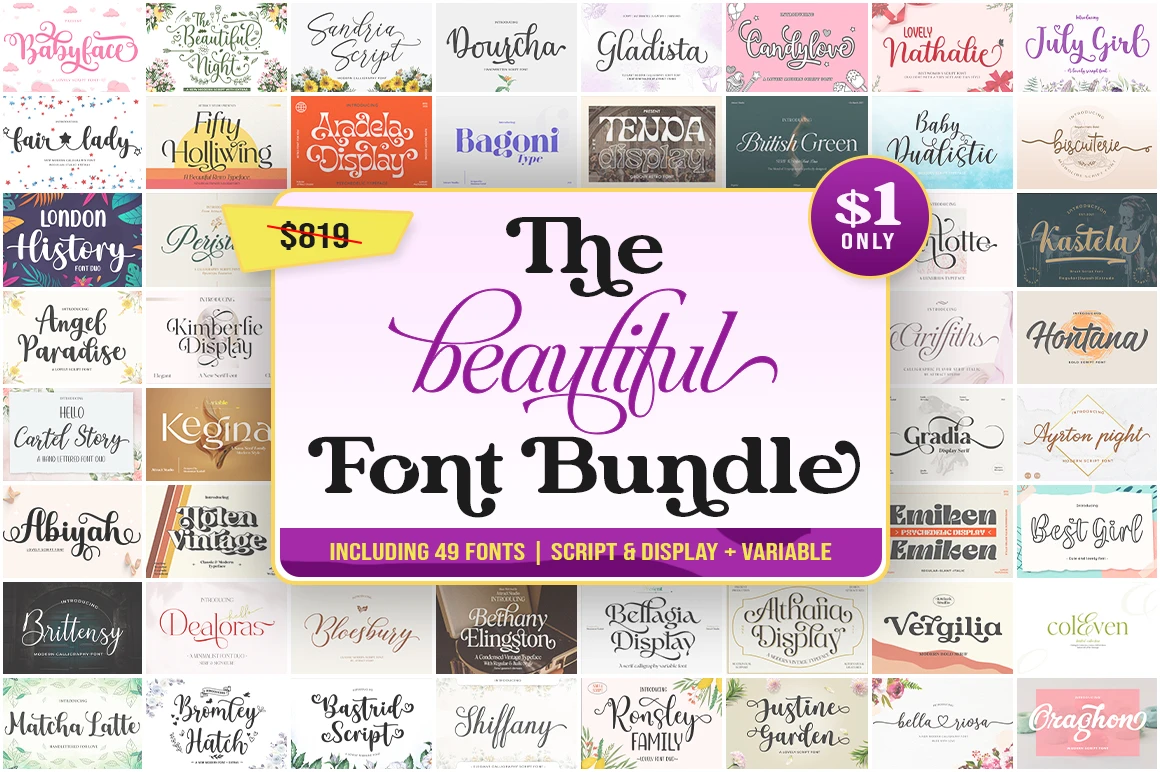
The Beautiful Font Bundle brings together 49 premium designer fonts across several categories, including script, serif, sans serif, and display styles. A few of the fonts lean elegant and editorial, while others are more playful or bold for branding work. It’s the kind of mix that actually helps when you’re jumping between projects and need different moods without hunting through hundreds of files.
One thing I noticed while looking through the bundle is that the fonts don’t all feel overly trendy. That’s honestly a good thing. Some bundles age badly after a few months because every font follows the same aesthetic. Here, there’s enough variation that you can use them for packaging, logos, Pinterest graphics, invitations, website headers, or even small business branding without everything looking identical.
Several fonts also include:
- Alternates
- Ligatures
- Multilingual support
- Extra glyphs
- Variable font options
That makes a bigger difference than people think, especially for logo work or social content where tiny typography adjustments matter. A font with strong alternates can completely change how custom a design feels.